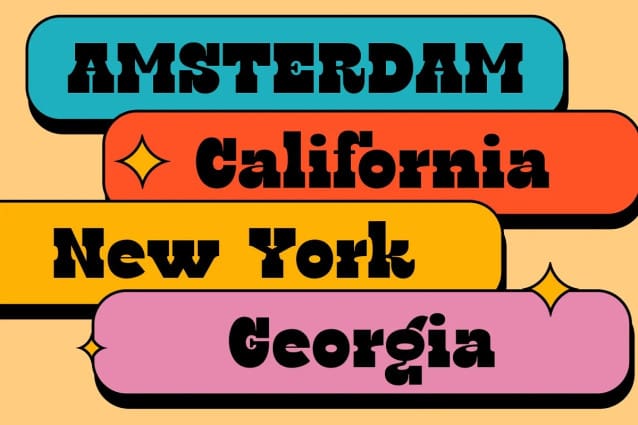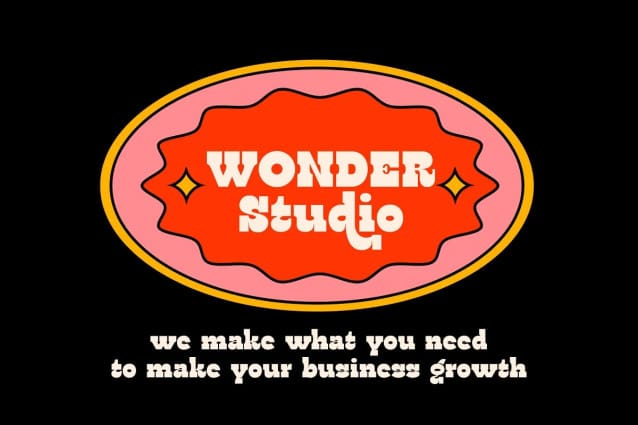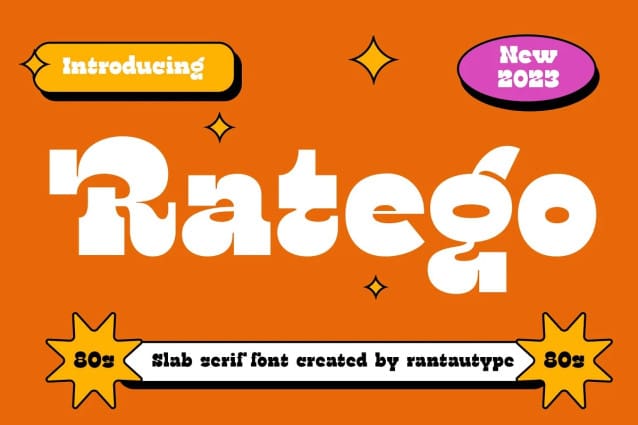
Ratego Slab Font
Ratego Slab Font is a vintage font that bold curve make it look Unique, fungky, fun, modern, and versatile serif Font. Come with more alternate and ligature you can mix and max to create a more stunning display.
Ratego separate in reguler and italic, is a beautiful choice for any creative endeavor, creating fun, modern, chic, lifestyle design such as logos, title, cover, branding, display and magazine, and more. Now you have can choice ratego to make your branding.